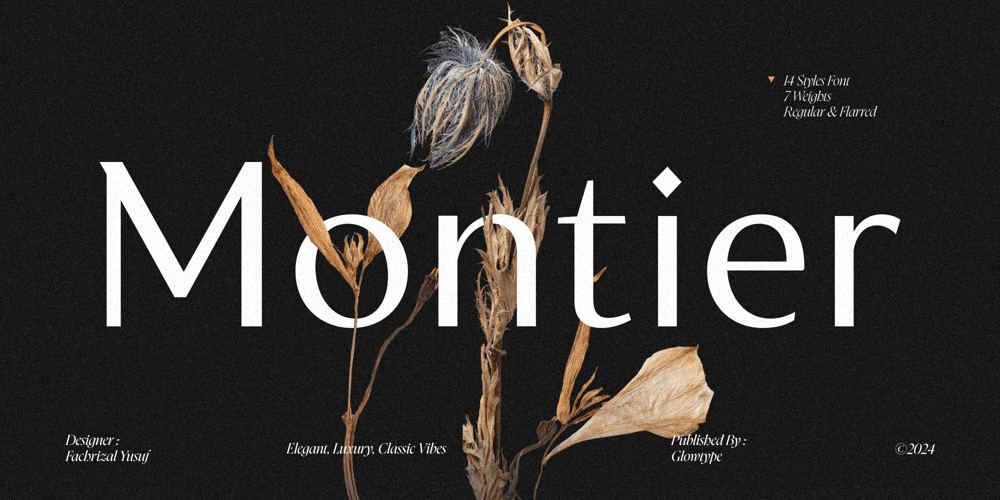
Montier Variable Font Family was designed by Fachrizal Yusuf and published by Glowtype. Montier Variable contains 2 styles and family package options. This is A Variable font from previous family Montier.Montier A Elegant meet Classic Vibes was created to express things in a classic yet glamorous way. Come with two style to give different vibes, Regular to give elegant, luxury and masculine vibes and Flared to give classical and roman vibes.Montier is perfect for display purposes such as editorial projects, Logo designs, Music Albums, Apparel Branding, product packaging, magazine headlines, or simply as a stylish text overlay on any background image.Cheers & enjoy! ๐